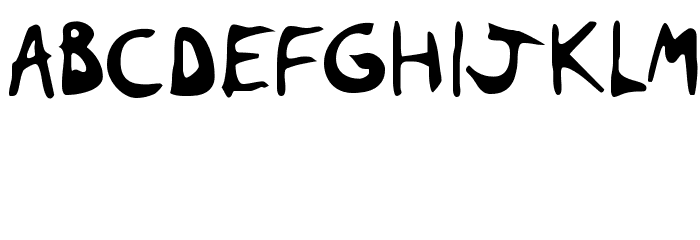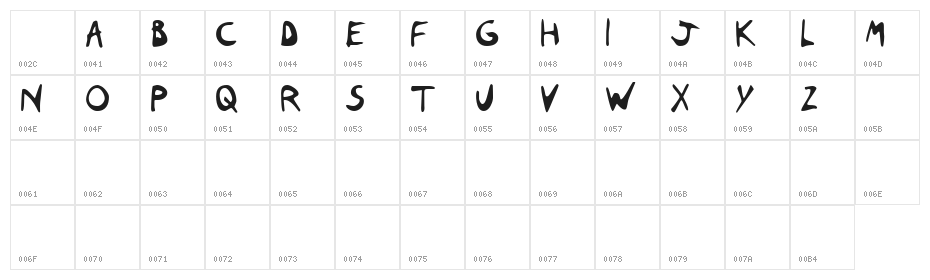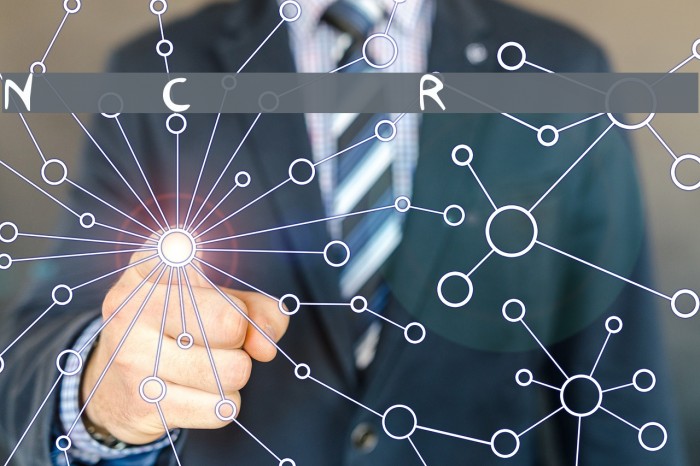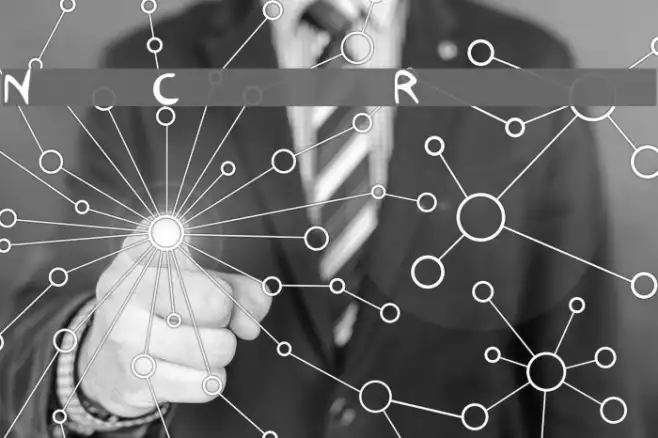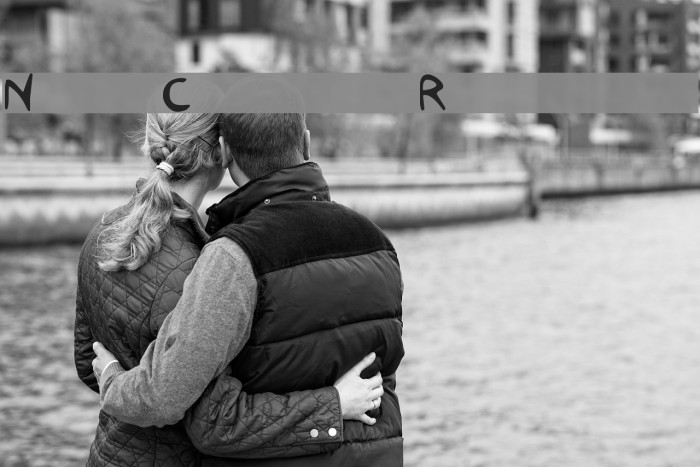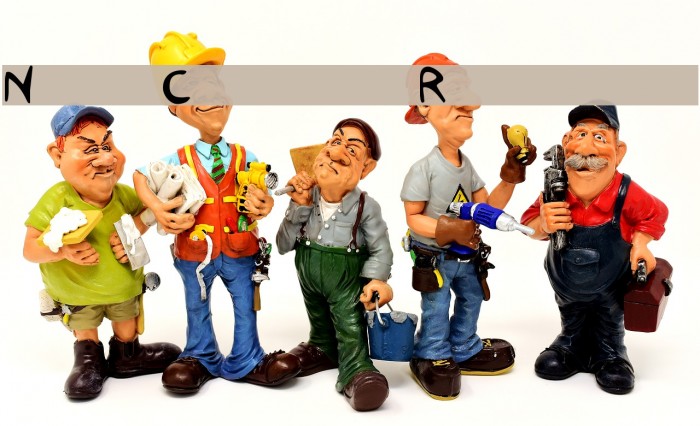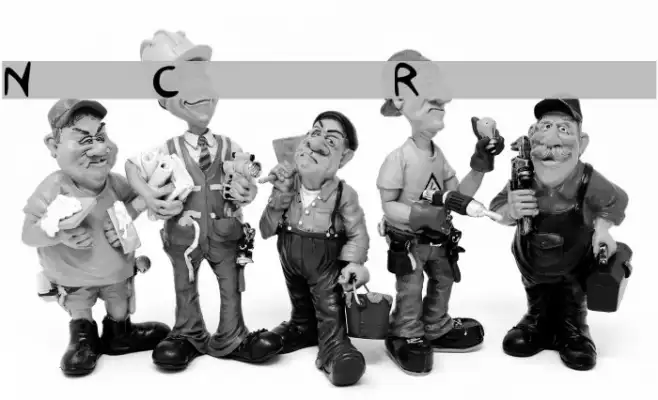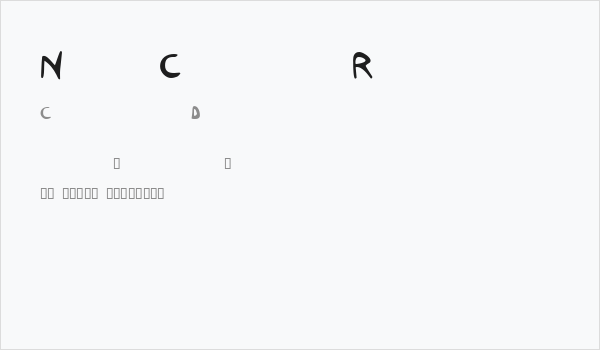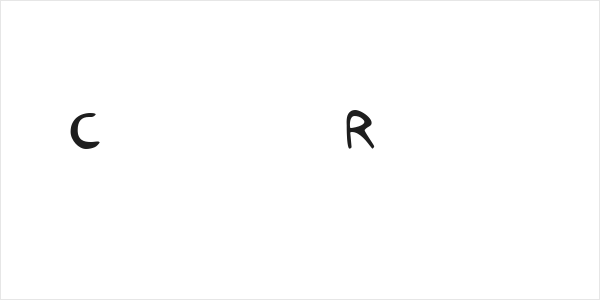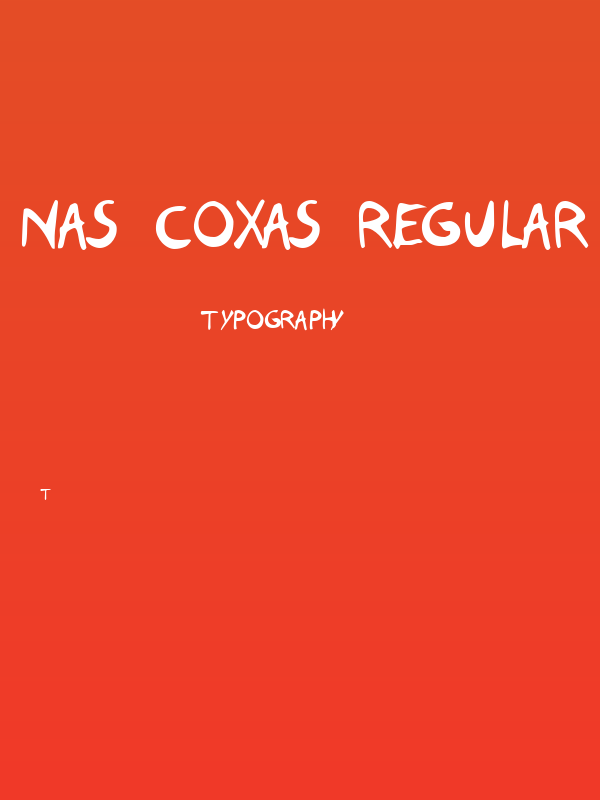
Nas Coxas Regular Font
Nas Coxas Regular Description
This font features a playful and dynamic style with a handwritten appearance. The characters are bold and slightly irregular, giving them a lively and informal look. The strokes are thick and rounded, contributing to a friendly and approachable feel. The uppercase and lowercase letters maintain a consistent style, with a slight slant that adds to the casual aesthetic. The numbers and special characters are designed to match the overall playful theme, making this font suitable for creative and fun projects.
| Proposed Projects | Ideal for children's books, playful branding, casual invitations, and creative posters. |